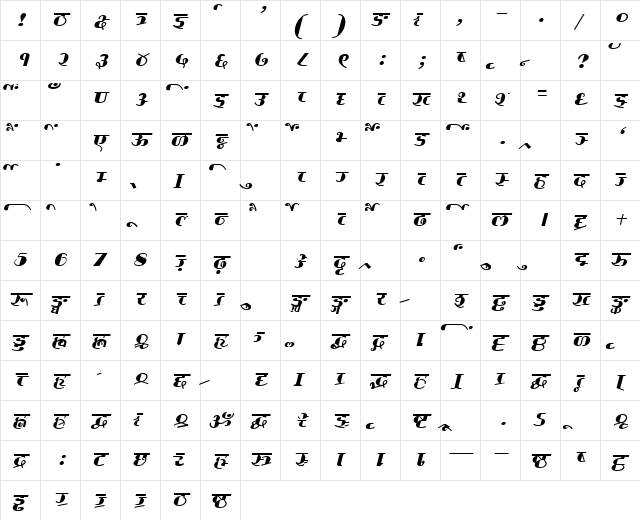
AkrutiDevPrakash Italic Font Preview
AkrutiDevPrakash Italic
Design Context for AkrutiDevPrakash Typeface
AkrutiDevPrakash offers clean, dependable letterforms without strong stylistic allegiance, making it a practical choice for designers who need flexibility. Its italic angle brings a sense of urgency and motion to the letterforms.
Pro Tip: Try AkrutiDevPrakash for annotation and caption copy alongside an upright companion — the contrast in angle creates a dynamic but ordered typographic system.